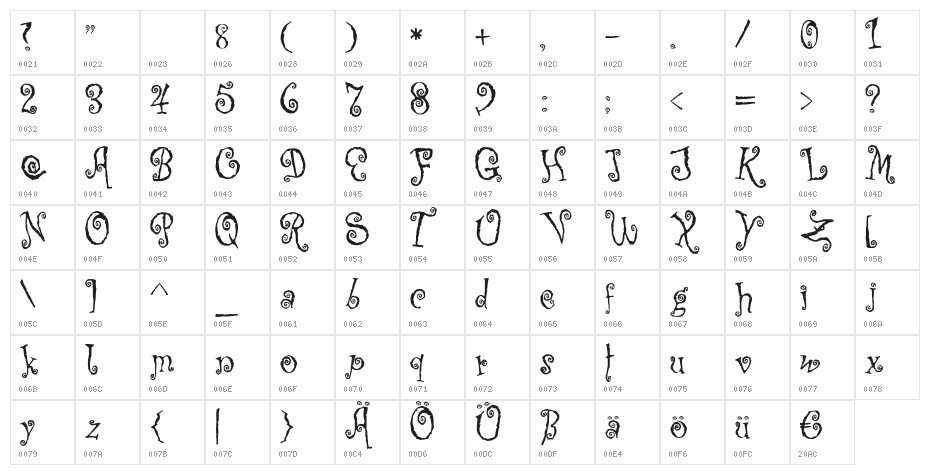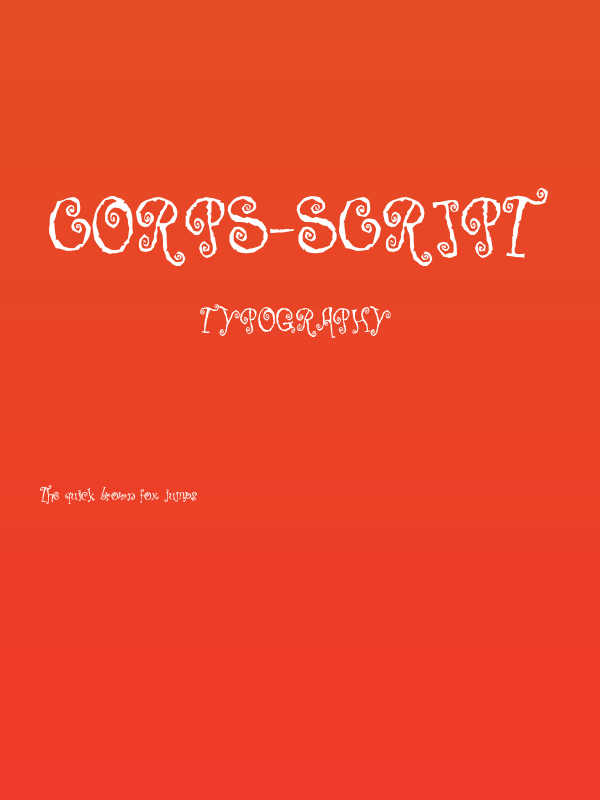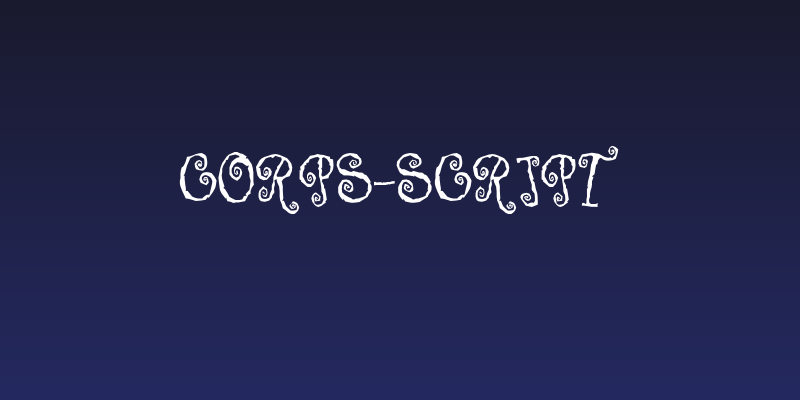
Corps-Script Font
Corps-Script Description
This font features a whimsical and playful design with a hand-drawn appearance. Each character is adorned with unique, curly embellishments that give it a lively and artistic flair. The strokes vary in thickness, adding to the font's dynamic and energetic feel. The uppercase and lowercase letters maintain a consistent style, with the uppercase being slightly more elaborate. Numbers and special characters follow the same decorative theme, making the font suitable for creative and informal projects. Its distinctive style makes it stand out, perfect for capturing attention in a fun and engaging way.
| Overall Style | Playful |
| Proposed Projects | Ideal for children's books, playful invitations, artistic posters, and creative branding. |